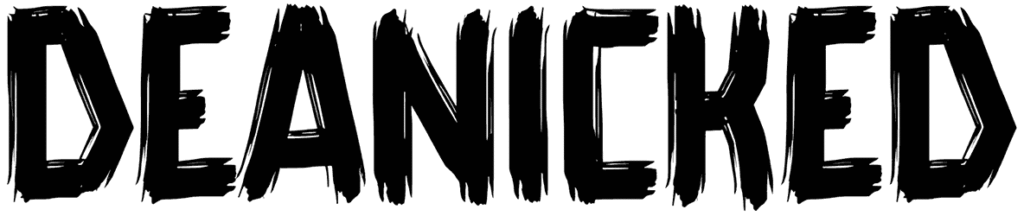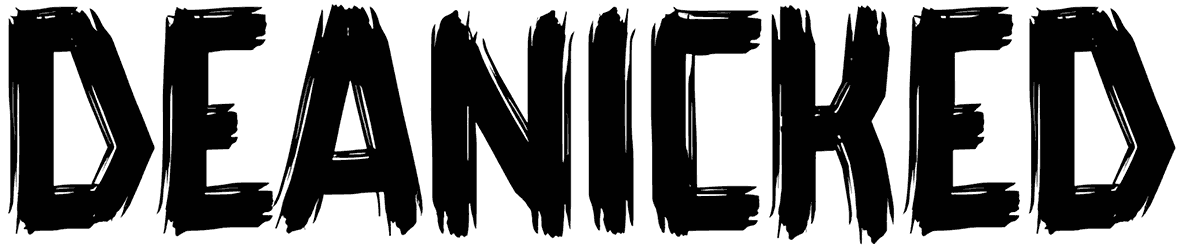
Deanicked Font
When you don’t want your Halloween font to be terrifying, and you can settle for only spooky, Deanicked can be your guy. It has that sort of haunted vibe that makes it one of those interesting brush fonts that, in the right background, can easily give you goosebumps.
It’s also usable for apparel store signs, music club posters, etc. Too bad half the numbers and the whole lowercase set are missing. Who knew what else you could do with it then?!